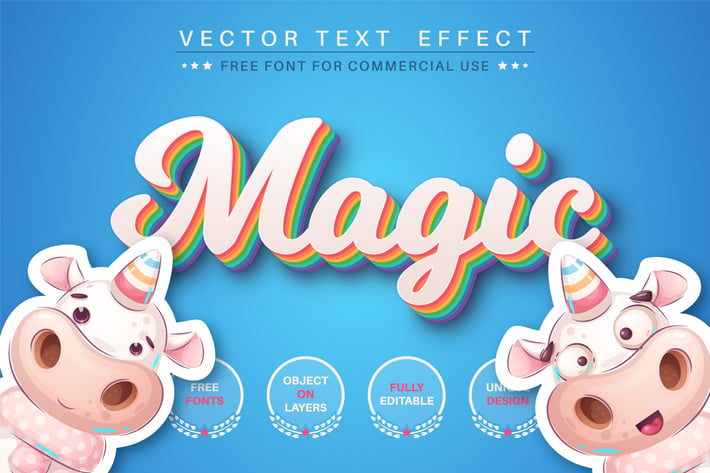
Magic unicorn - editable text effect, font style
Hello! I'm happy to introduce my new text effect "Magic unicorn". Just write your word and the effect will apply! Be as creative as you like to be in expressing yourself using this unique “Magic unicorn”. Effect is perfect for any project that needs a unique handy touch whatever else your imagination leads you to!